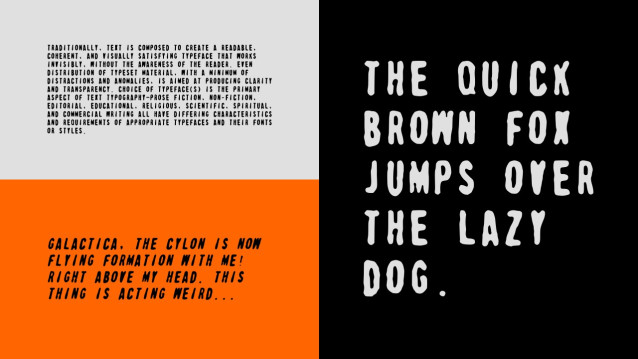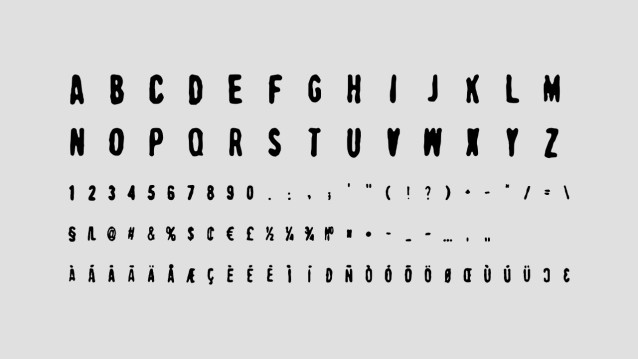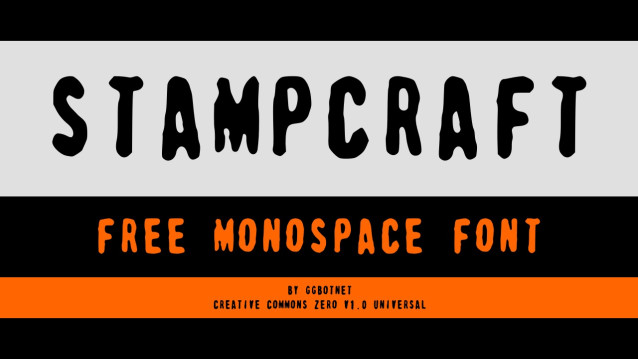
Stampcraft Display Font
Stampcraft Display Font, perfectly fit for branding, logo, wedding things, greeting cards, fashion, lookbook, marketing promotion, anytime you want to look fancy elegant but still casual.